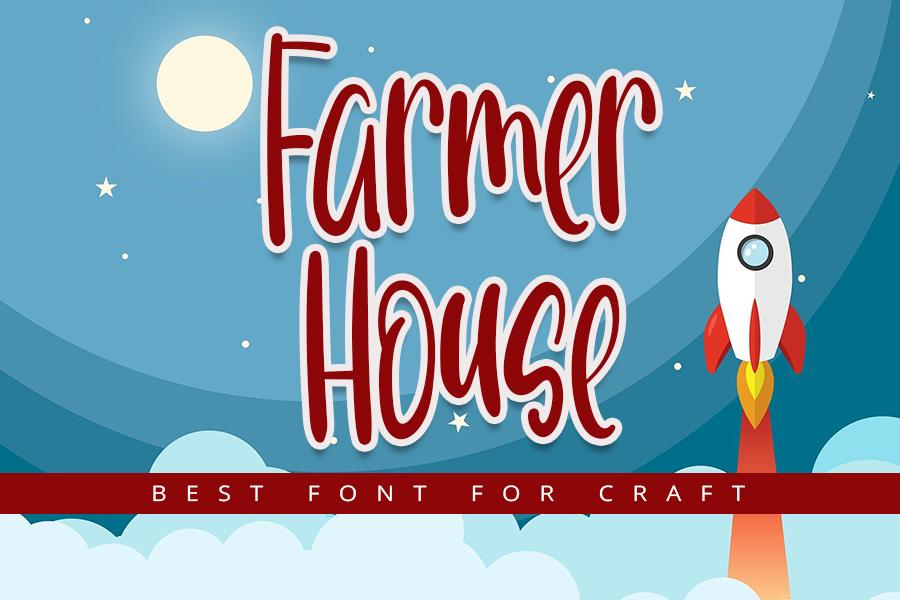
Farmer House Font Description
Farmer House is a perfect combination of a handwritten and script font with its cursive accents, authentic letters, and varied baseline. Use this playful font for to design flyers, mockups, logos, banners, Instagram, youtube, and various other crafts.